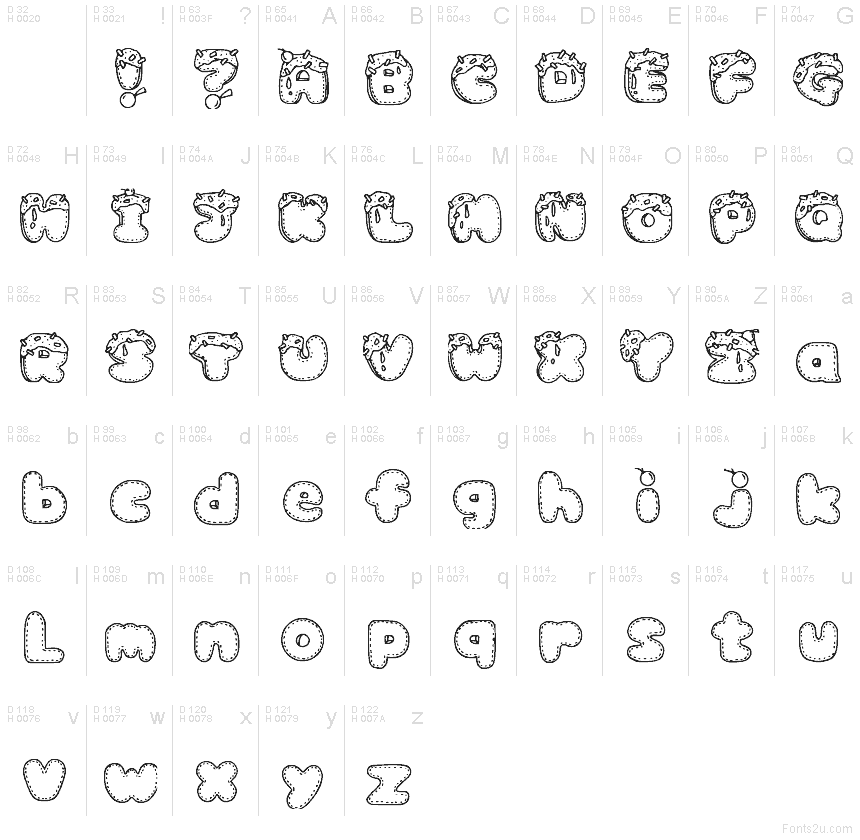
Miams Regular
Miams font is a rounded display typeface that conveys a playful and cartoonish style with decorative elements on the inside. Designed by Perrine Pipereau, this bold font carries a whimsical mood and light-hearted appeal which will immediately stand out in any layout or design. It’s particularly suitable for designs where the use of bold typography is emphasized.
When it comes to usage, there are plenty of options to consider. Using Miams when designing packaging labels for snacks, candy, biscuits, ice cream, and cake labels is an excellent approach. The same applies to using it as the main title or secondary typography in comic books written for children age 3 – 12. Posters, magazine covers, outdoor ads (railway station squares) are all other ideal projects where this free display font can be utilized!